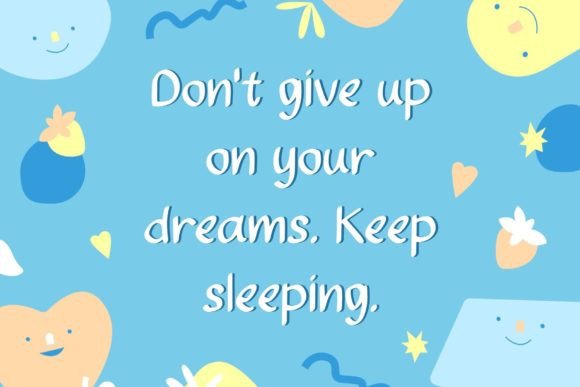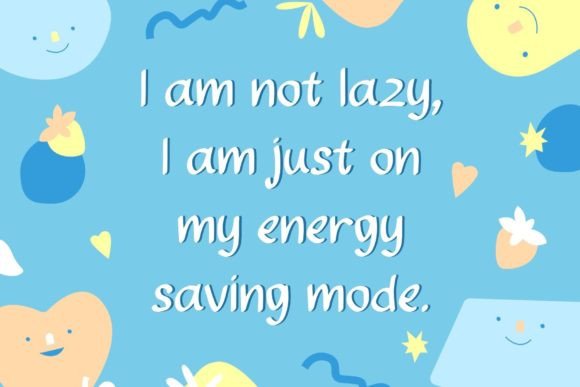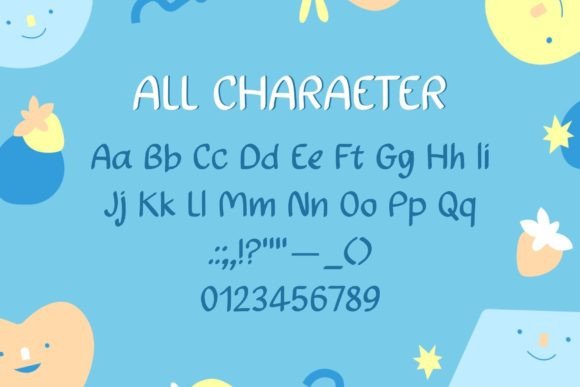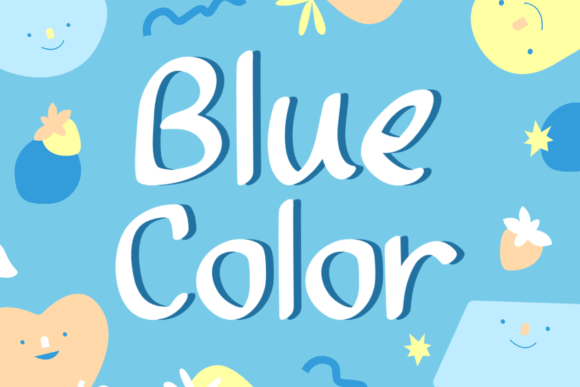
Dive into the Refreshing World of Blue Color Font
I’ll never forget the design project that led me to discover the captivating Blue Color font. I was working on a branding campaign for a wellness retreat, and I needed a typeface that would evoke the calming and soothing atmosphere of the ocean. After hours of scouring through font libraries, I stumbled upon this gem, and it instantly became my go-to choice. With its elegant curves and vibrant shades of blue, it’s the perfect addition to any design project that needs a touch of serenity and style.
- ✨ Elegant curves and sophisticated design
- ✅ Wide range of vibrant blue shades to choose from
- 💫 Perfect for designs that require a calming and soothing atmosphere
- 🎨 Highly versatile and works well with various design styles
The Designer Inspiration
The Blue Color font was inspired by the calming and soothing atmosphere of the ocean. The designer wanted to create a typeface that would evoke the feeling of serenity and tranquility, while also being elegant and sophisticated. The result is a font that’s perfect for designs that require a touch of calmness and style.
Q: What is the Blue Color font?
A: The Blue Color font is a typeface that features elegant curves and vibrant shades of blue. It’s perfect for designs that require a calming and soothing atmosphere.